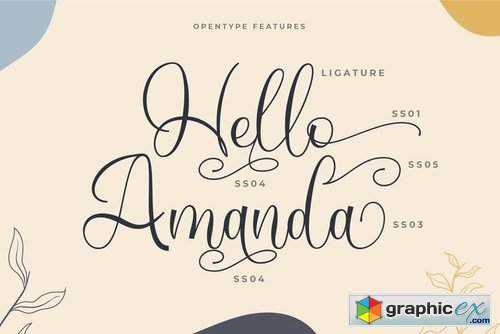
Henita VN - Modern Script Font
The latest collection from Creat Big Supply, Henita Font a modern calligraphy typeface. Very cool fonts that have a modern calligraphy style with abundant alternative features that make you free to create for your project.